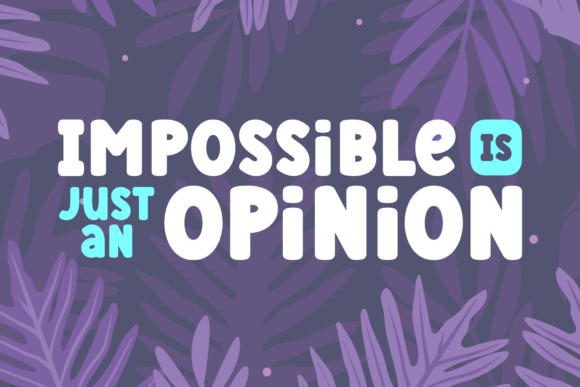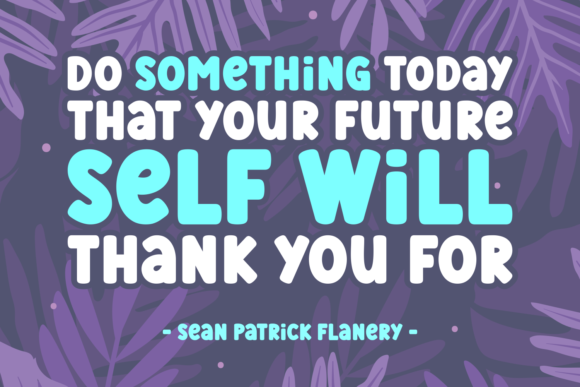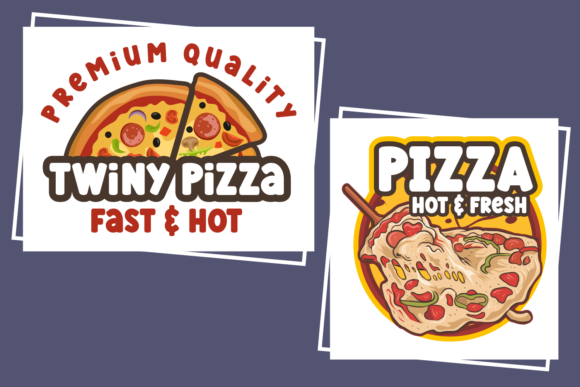
Introduction to Flyrist Font
Flyrist is a cool and bold display font that is readable and stylish.
It will look stunning on any poster flyer or print Use this font for your designs and explore its endless possibilities.
Key Features of Flyrist Font
Why Choose Flyrist Font?
Flyrist Font offers exceptional quality and versatility, making it a valuable addition to your design toolkit. Whether you’re creating for personal projects or commercial use, Flyrist Font delivers professional results.